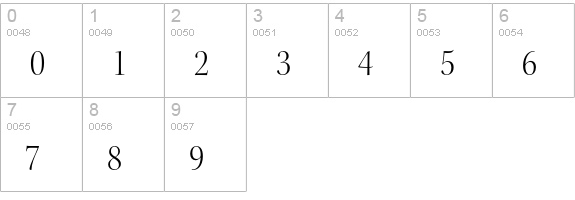
Kepler Std Light Semicondensed Display is a refined, elegant variant in the Kepler typeface family \xE2\x80\x94 well suited to elegant body text, refined sub-headings, and luxury branding.
The Kepler Std Light Semicondensed Display font is a visually stunning typeface that exudes elegance and sophistication. With its sleek and modern design, this font is perfect for creating eye-catching headlines, titles, logos, and more. The light semicondensed style of this font allows for a space-saving yet legible display, making it ideal for various design projects. Whether you're working on a magazine layout, advertising campaign, or website design, the Kepler Std Light Semicondensed Display font will effortlessly add a touch of class to your creations. This font's clean lines and balanced proportions make it highly versatile, suitable for both print and digital media. Its clarity and readability ensure that your message is conveyed effectively, captivating your audience with its simplicity and sophistication. One of the best features of the Kepler Std Light Semicondensed Display font is that it is freely available to download at FontsMarket.com. This means that you can easily access this exceptional typeface without any cost, making it an excellent choice for designers on a budget or anyone looking to enhance their creative projects. Whether you're a professional graphic designer or an aspiring artist, the Kepler Std Light Semicondensed Display font will undoubtedly elevate your work to new heights. Its combination of elegance, versatility, and availability make it a must-have in your font collection. Download it today and unlock a world of design possibilities!